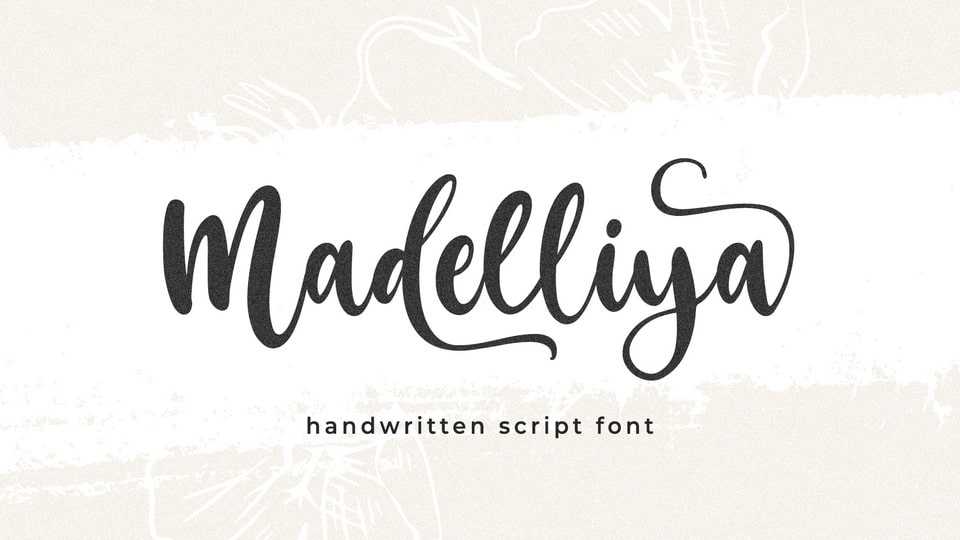
Download Madelliya font, a beautiful script, perfect for weddings, Christmas cards, letters, labels, or anything that needs a romantic accent. With its stylish curves and flourishes, Madelliya will add a touch of elegance to any design.
Designer: Md Anowar Hossain